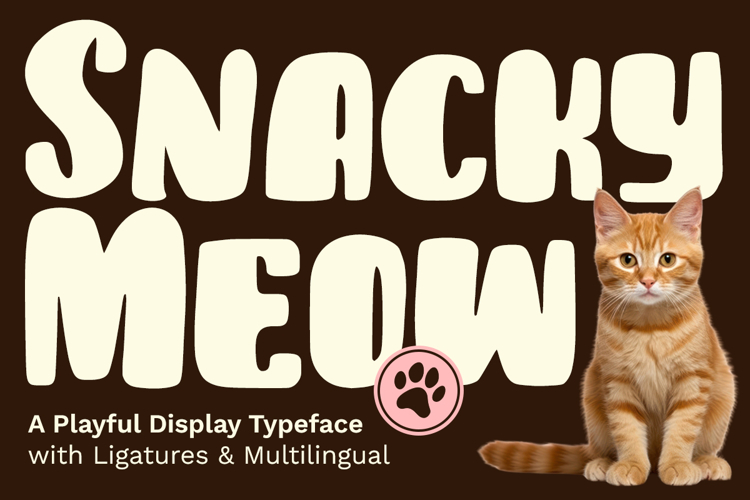
SNACKY MEOW
Snacky Meow – Kids Font is a cute and playful display typeface inspired by the fun world of snacks, cats, and childhood joy. With rounded shapes and a friendly handmade look, this font brings warmth and happiness to any project designed for kids and families.
Each letter of Snacky Meow feels cheerful and full of personality—perfect for children’s books, snack packaging, birthday invitations, or school-related designs. Its soft, bouncy curves make it ideal for projects that aim to be fun, lighthearted, and approachable.
This adorable font captures the sweetness of playful moments and cozy creativity. Whether used for cafe menus, cute product labels, classroom decorations, or cartoon titles, Snacky Meow adds a delightful and expressive charm that draws smiles.
Easy to read and fun to use, Snacky Meow fits beautifully into both digital and handmade designs—from Cricut crafts and stickers to game titles and social media graphics.
Add a touch of sweetness to your designs with Snacky Meow – Kids Font. Perfect for projects that celebrate fun, food, and furry friends, this font brings playful energy and irresistible charm to every creation.